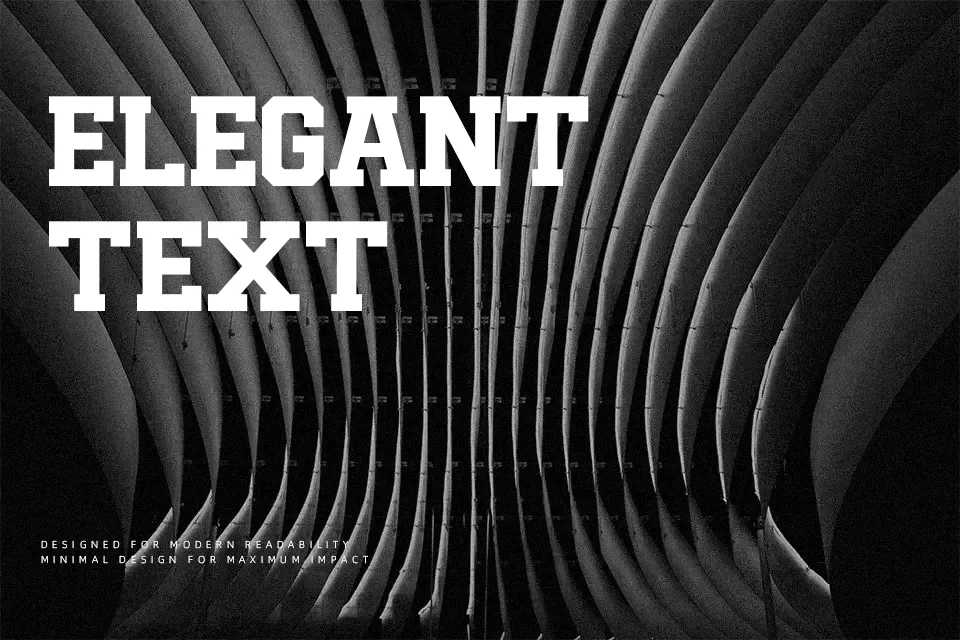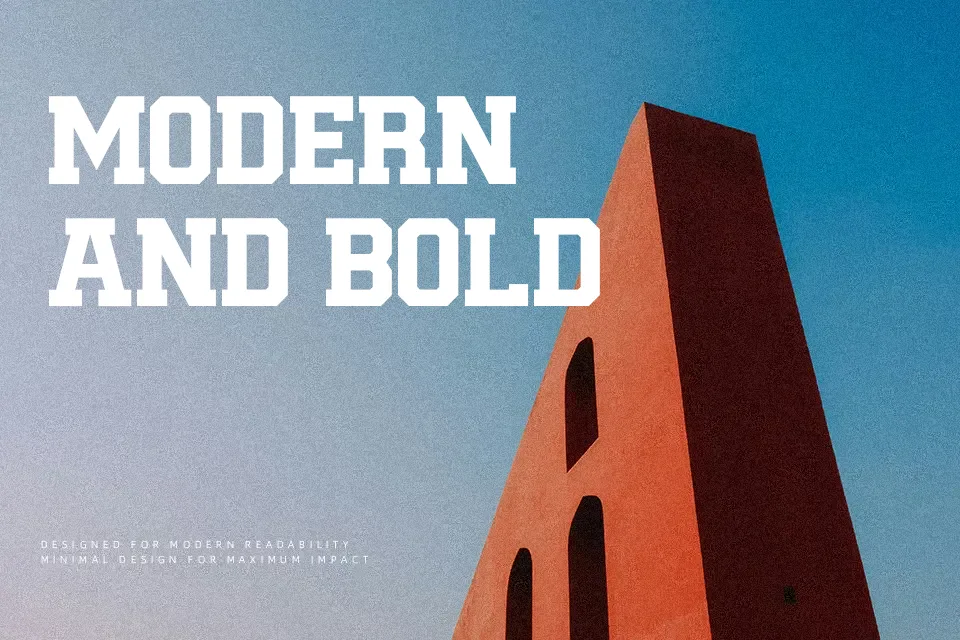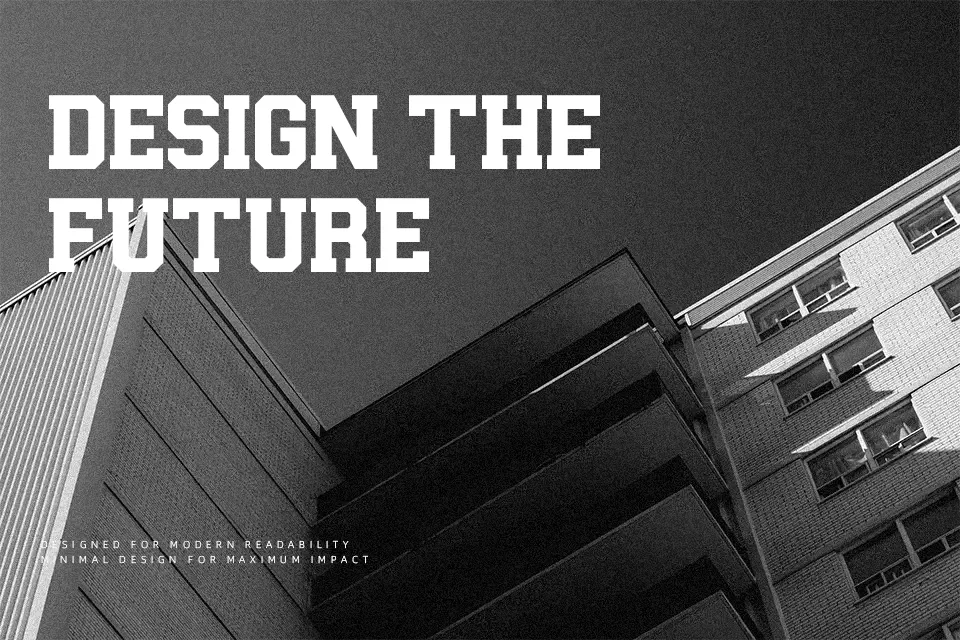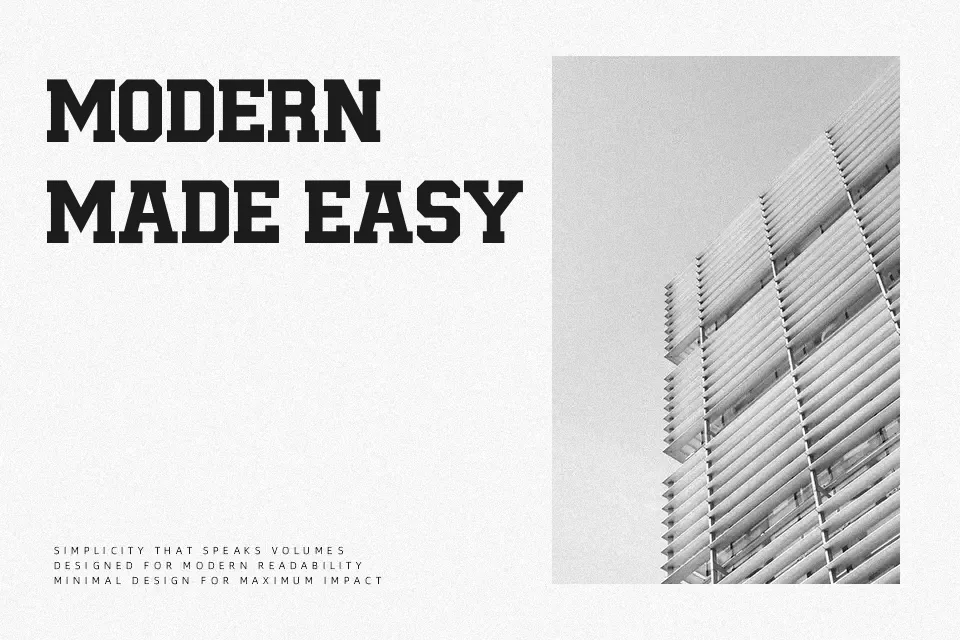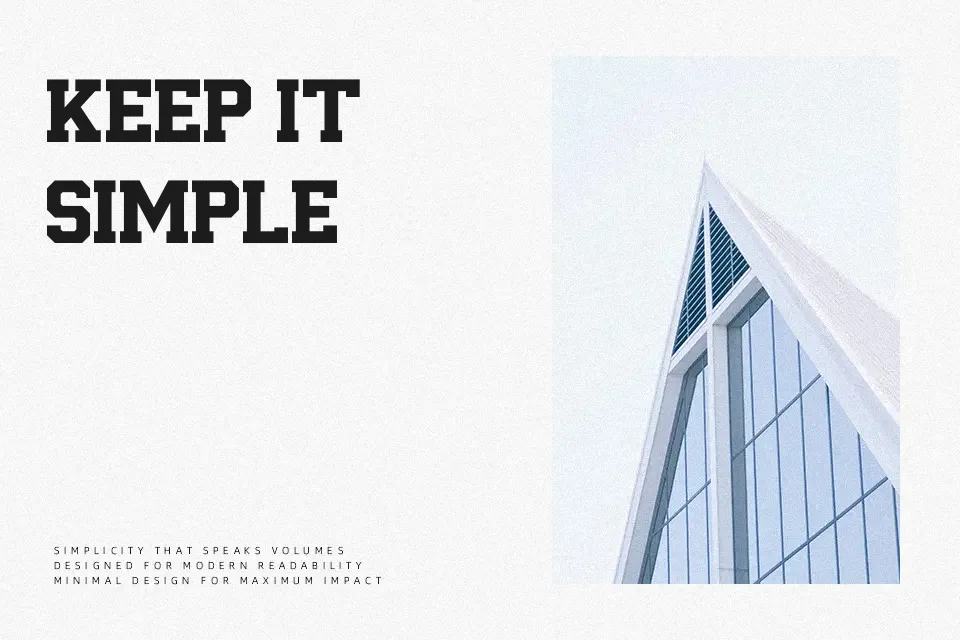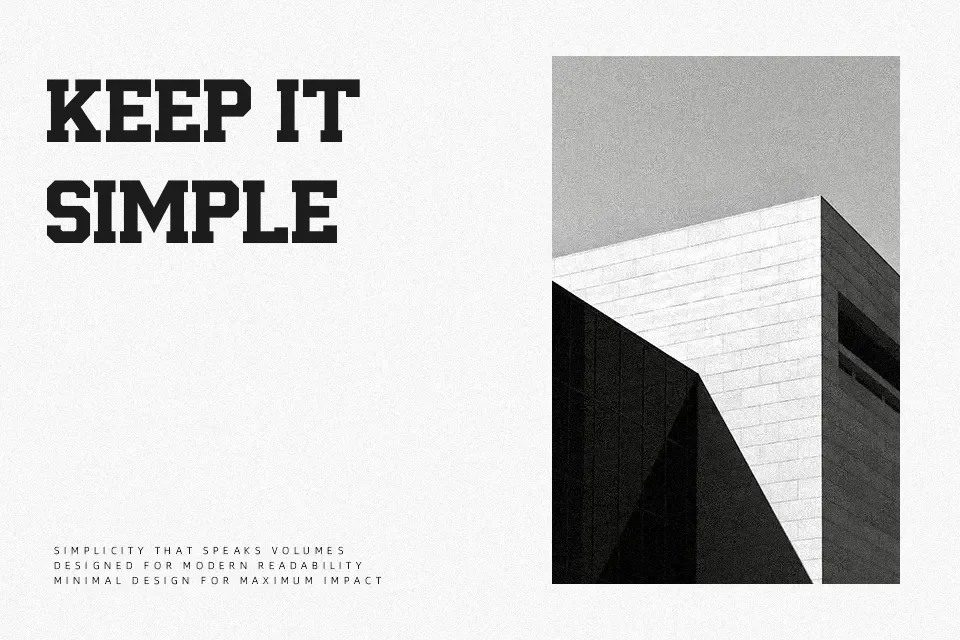
Become Font
Designed by Kong Font
At first glance, Become hits you with confident weight and tight spacing—the kind of letterform that’s designed to fill a canvas without apology. Kong Font built it squarely in the “modern sport” lane: condensed proportions, assertive stroke terminals, and a structure that reads loud even at a distance. It holds up well on team jersey mockups, gym branding, event posters, and social media graphics where energy matters more than subtlety. That said, it’s a one-trick pony at body copy scale—drop below 18pt and the condensed spacing starts to feel cramped rather than powerful. It’s also a poor fit anywhere a neutral or formal voice is expected. Think of it as the typographic equivalent of a pre-game playlist: effective in context, jarring everywhere else.
– Sports team logos and jersey wordmarks
– Esports event posters and gaming thumbnails
– Gym or fitness brand headers
– High-energy social media campaign graphics
– Body text or long-form reading at small sizes
– Corporate, legal, or formal documents
– Wedding or editorial design contexts
– Interfaces requiring neutral UI typography
Perfect for advertising, branding, and gaming, with a bold and condensed style.